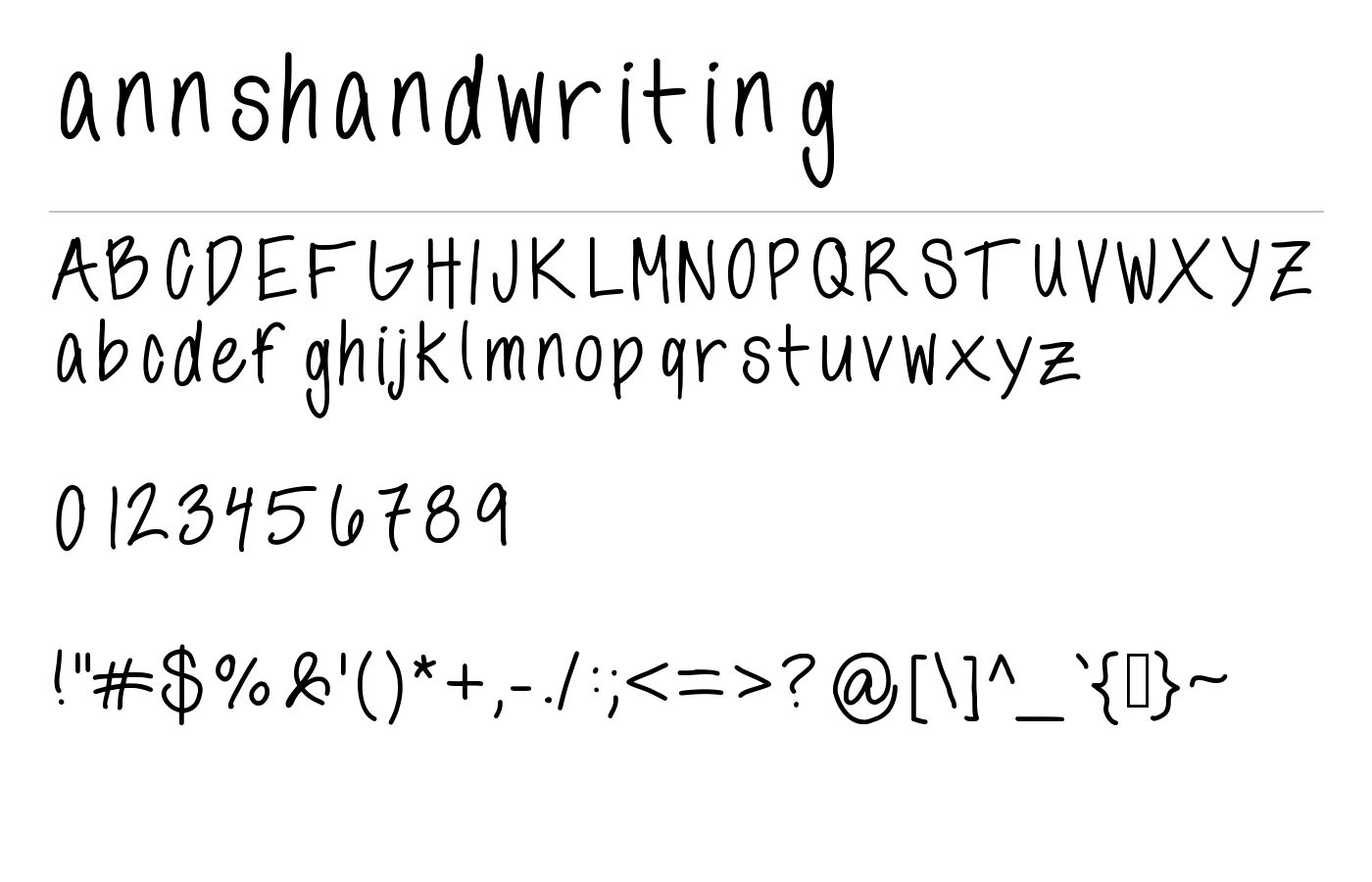
Annshandwriting is a casual, playful handwritten sans serif font with a light weight and a natural, slightly uneven stroke that mimics authentic penmanship. Its tall x-height and loose spacing make it easy to read, lending a friendly and approachable feel ideal for invitations, informal branding, and personal projects. This font works well where a warm, personal touch is desired, adding charm without sacrificing clarity.
annshandwriting Font
About annshandwriting Font